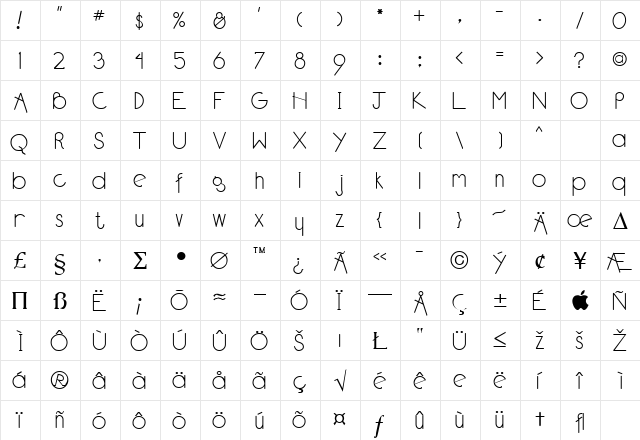
NeuSansLight Regular Free Font
NeuSansLight Regular
Design Context for NeuSansLight
NeuSansLight is a composed and adaptable typeface that performs quietly and consistently across a wide range of design contexts. Its slender proportions lend an understated elegance to any composition.